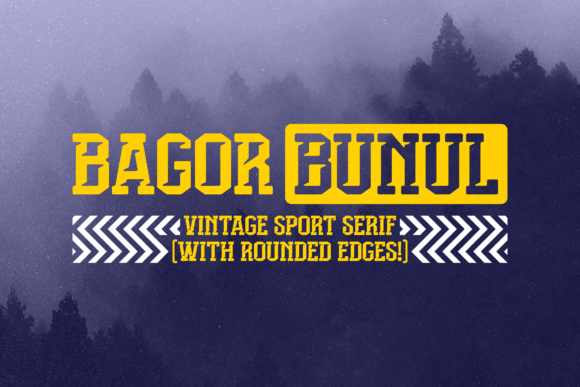
Introducing Bagor Bunul: The Ultimate Blocky Font for Modern Designs
In the world of typography, fonts play a crucial role in conveying messages, expressing emotions, and creating brand identities. With the ever-evolving design trends, it’s essential to stay ahead of the curve with fresh and innovative fonts. Today, we’re excited to introduce Bagor Bunul, a blocky font that draws inspiration from classic letters used in sports jerseys and apparel, while incorporating unique details to make it relevant to today’s design landscape.
What is Bagor Bunul Font?
Bagor Bunul is an all-caps font that offers a modern twist on traditional blocky letters. Its design is rooted in the classic typography used in sports jerseys and apparel, but with a fresh spin that makes it perfect for contemporary designs. The font’s blocky structure and bold lines give it a sturdy and athletic feel, making it ideal for logos, branding, sports designs, headlines, posters, and more.
Key Features of Bagor Bunul Font
- Blocky Design: Bagor Bunul boasts a blocky design that pays homage to classic sports jersey letters.
- Unique Details: The font incorporates unique details that bring it up-to-date with current design trends.
- All-Caps with a Twist: While Bagor Bunul is an all-caps font, it allows for mixing upper and lower case letters, providing more variations for creative freedom.
- Versatility: It’s perfect for a wide range of applications, including logos, branding, sports designs, headlines, posters, and more.
The Design Inspiration Behind Bagor Bunul
The inspiration behind Bagor Bunul stems from the classic typography seen in sports jerseys and apparel. These letters are known for their bold, blocky appearance that conveys strength, resilience, and a sense of competition. However, to make Bagor Bunul relevant to today’s design trends, we’ve added unique details that give it a modern edge. This blend of classic and contemporary elements makes Bagor Bunul a versatile font suitable for various design projects.
Creative Ways to Use Bagor Bunul Font
Bagor Bunul’s versatility makes it a valuable addition to any designer’s toolkit. Here are some creative ways to use this font:
- Logo Design: The bold and blocky design of Bagor Bunul makes it perfect for creating memorable logos that stand out.
- Sports Branding: Its athletic feel is ideal for sports-related brands, teams, and events.
- Headlines and Posters: Use Bagor Bunul to create eye-catching headlines and posters that grab attention.
- Fashion and Apparel: The font’s classic yet modern look makes it suitable for fashion brands and apparel designs.
- Branding and Advertising: Bagor Bunul can be used to create a strong brand identity and for advertising materials that require a bold statement.
Tips for Effective Typography with Bagor Bunul
To get the most out of Bagor Bunul, consider the following typography tips:
- Mix and Match: Although Bagor Bunul is an all-caps font, experimenting with upper and lower case letters can create interesting visual effects.
- Play with Colors: The bold design of Bagor Bunul works well with vibrant colors, making it perfect for designs that need to pop.
- Combine with Other Fonts: Pair Bagor Bunul with complementary fonts for contrast and to add depth to your designs.
- Adjust Letter Spacing: Tweaking the letter spacing can enhance the readability and aesthetic of your text.
The Benefits of Using Bagor Bunul Font
Bagor Bunul offers several benefits that make it a go-to font for designers:
- Uniqueness: Its blend of classic and modern elements makes it stand out in the world of typography.
- Versatility: Suitable for a wide range of design projects, from sports branding to fashion and advertising.
- Readability: The bold and blocky design ensures high readability, even at smaller sizes.
- Easy to Use: With its simple yet distinctive design, Bagor Bunul is easy to incorporate into any design project.
Bagor Bunul is more than just a font – it’s a design statement. Its unique blend of classic blocky letters and modern details makes it a valuable asset for designers looking to create bold and memorable designs. Whether you’re working on a sports brand, fashion label, or any project that requires a strong visual impact, Bagor Bunul is the perfect choice. With its versatility, readability, and distinctive style, Bagor Bunul is set to become a favorite in the design community.